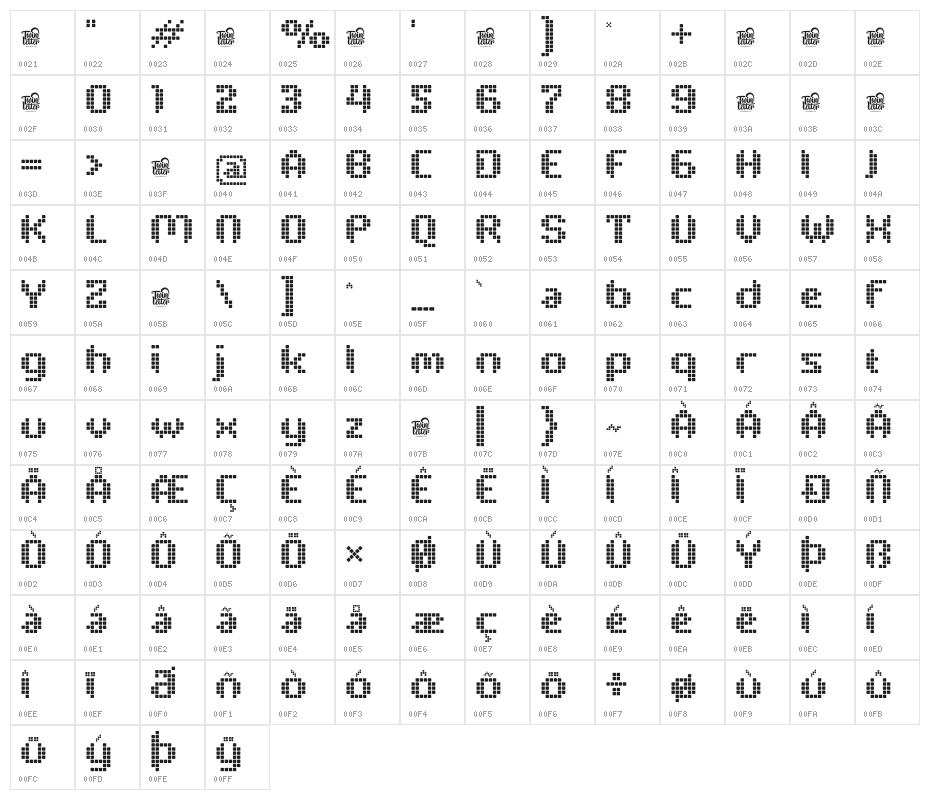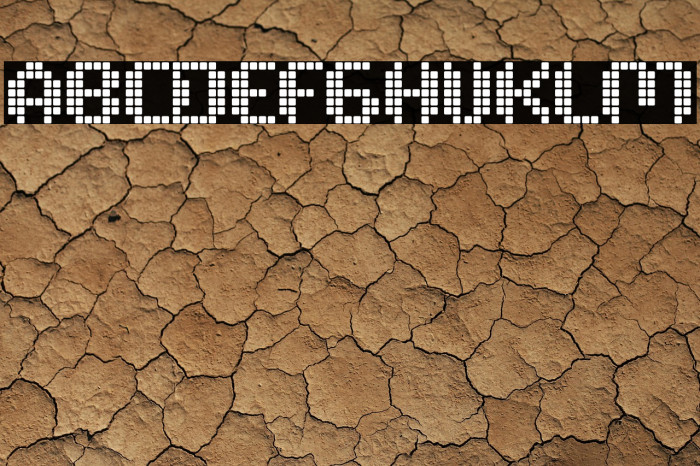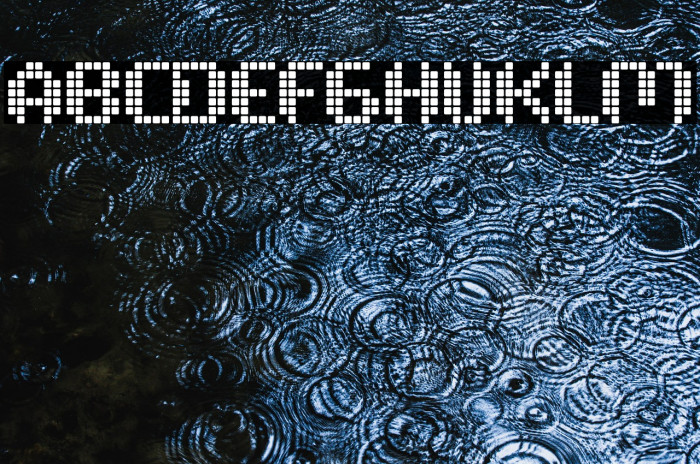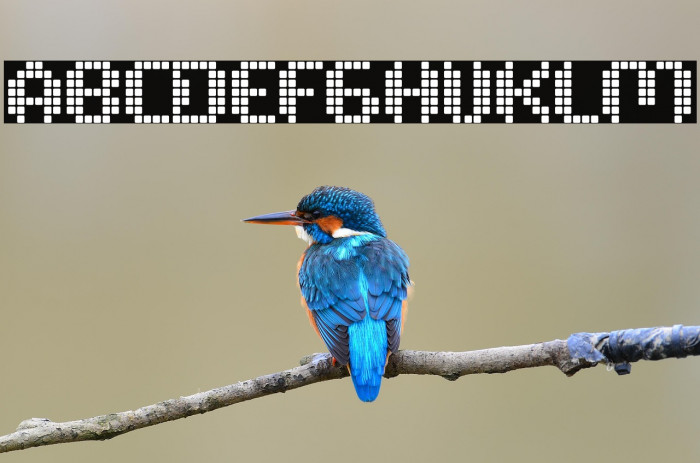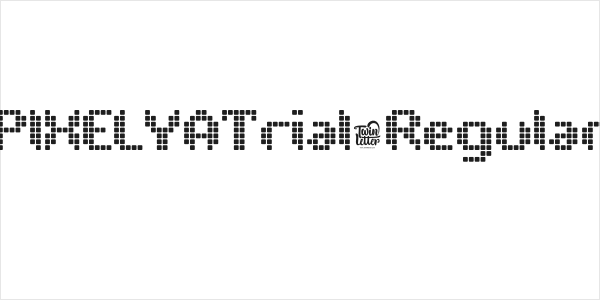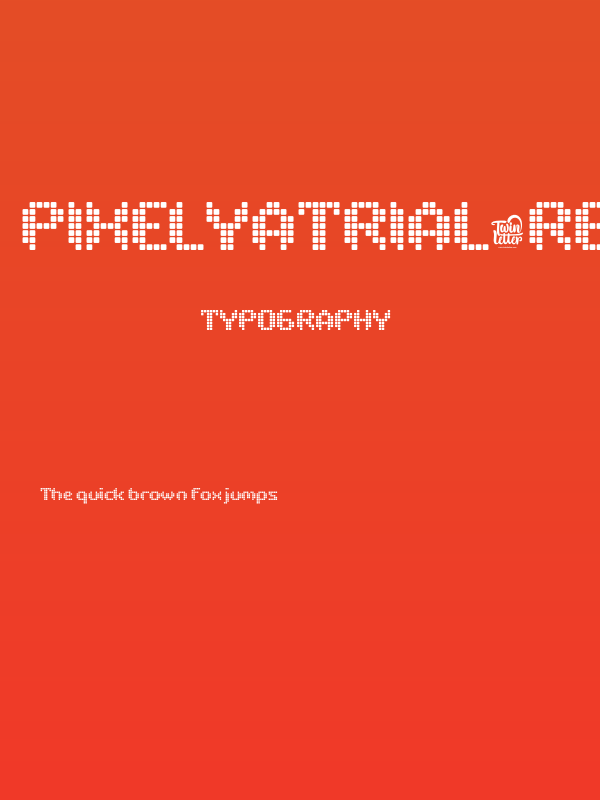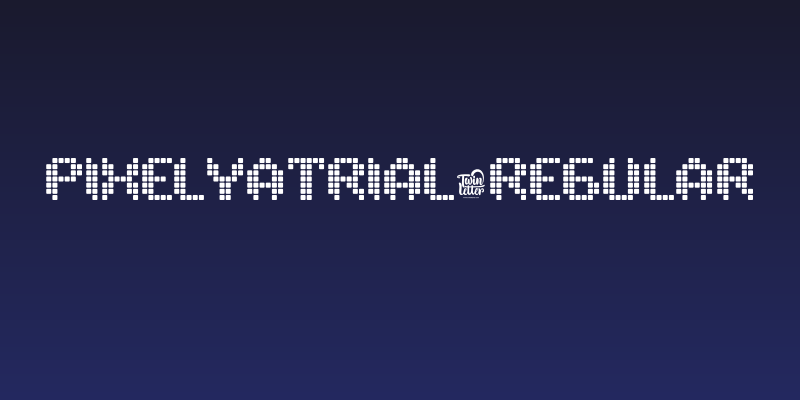
PIXELYATrial-Regular Font
PIXELYATrial-Regular Description
This font is a pixel-based design that uses small square blocks to form each character, creating a digital and retro aesthetic reminiscent of early computer graphics. The uniformity of the pixel arrangement gives it a structured and geometric appearance, while maintaining legibility. Each character is composed of a grid-like pattern, making it ideal for designs that require a tech-inspired or vintage digital look. The font includes uppercase and lowercase letters, numbers, and a selection of special characters, all adhering to the same pixelated style.
| Proposed Projects | This font is perfect for video game graphics, tech-themed posters, digital art projects, and retro-style branding. |